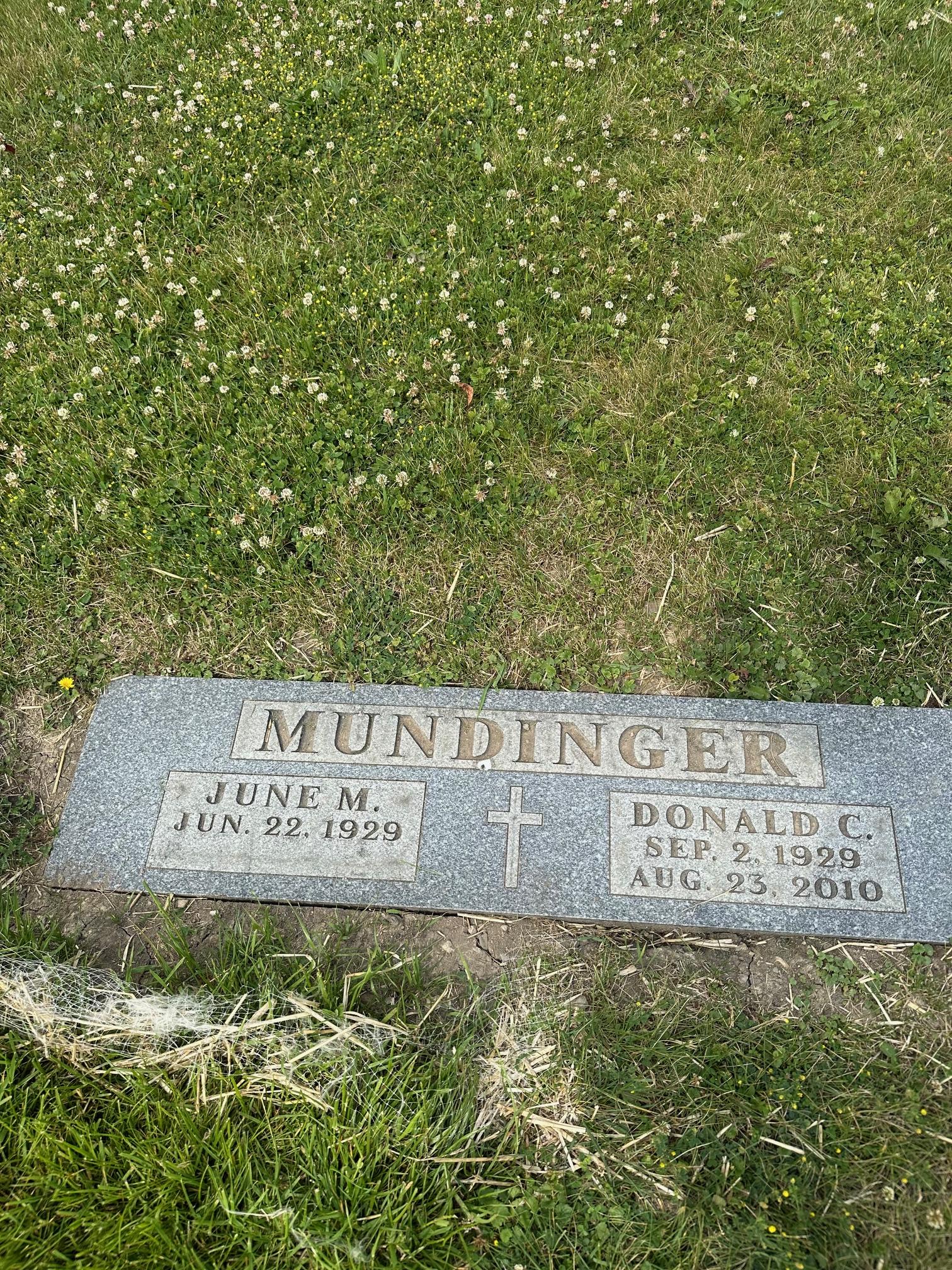
Font Identification
I’m unable to identify the name of the font used on this stone.
Hi Randy, this is a font in the Monu-Cad software named Times Roman. As you can see, it is not Times Roman, though the letters are based on Times Extra Bold, but with entirely different numbers. There was also a version of the font available in the Craftech software named Century.